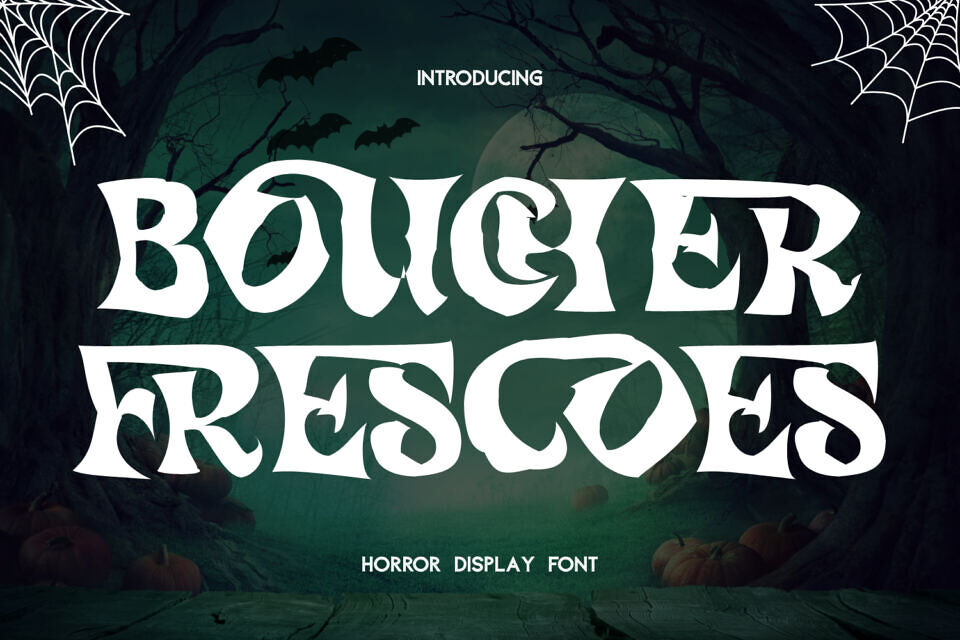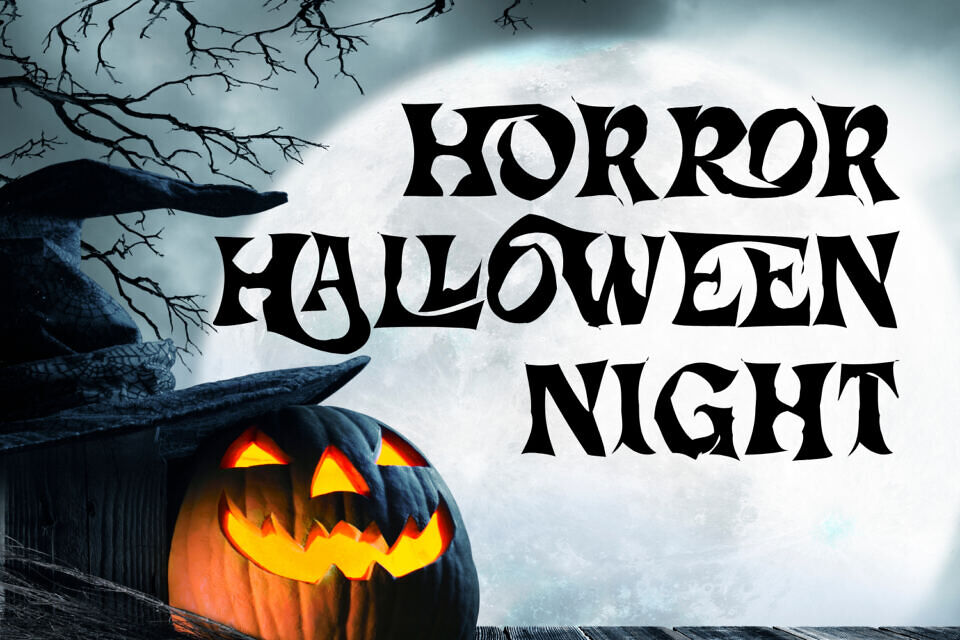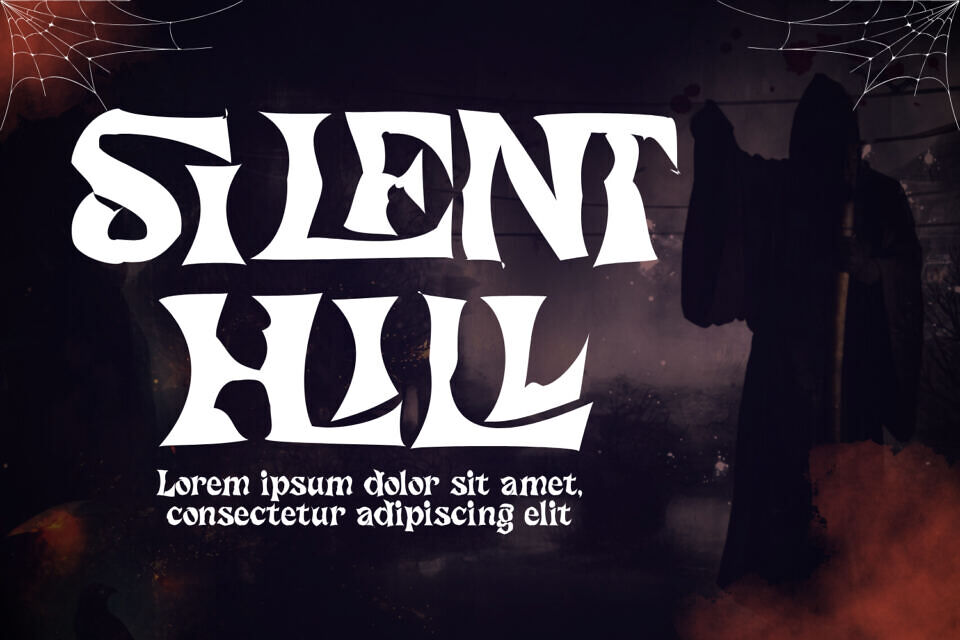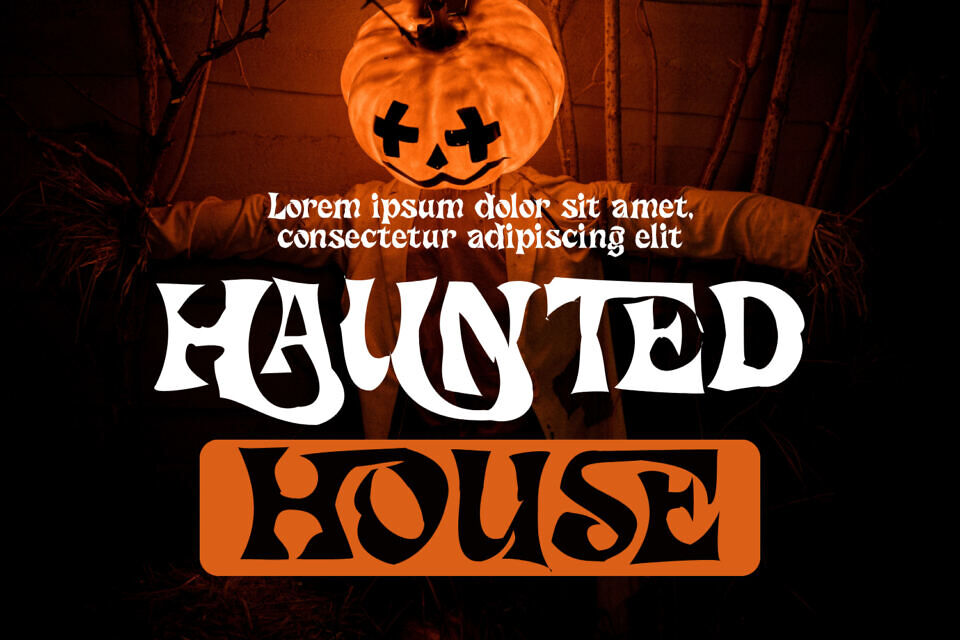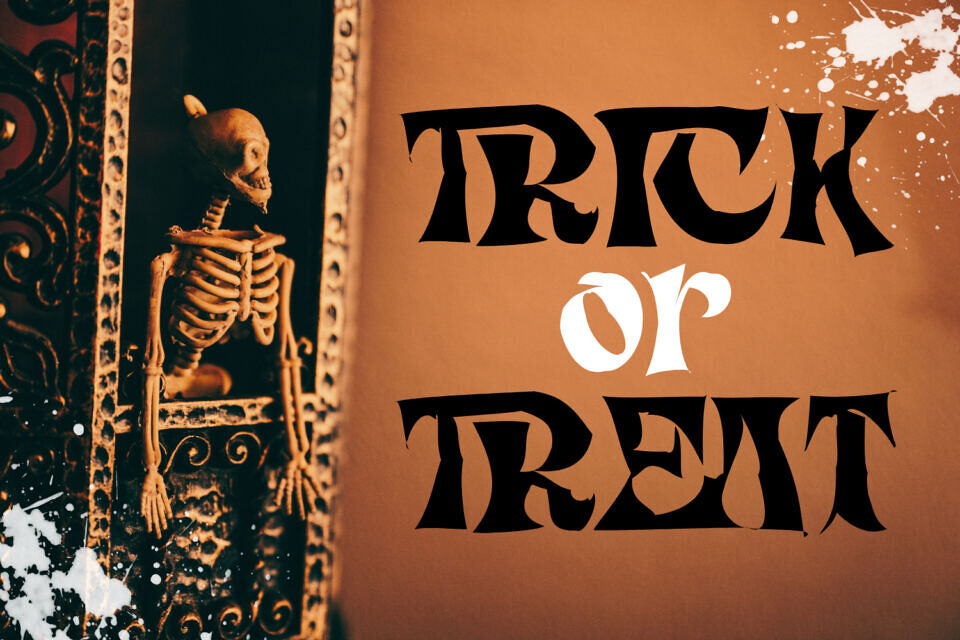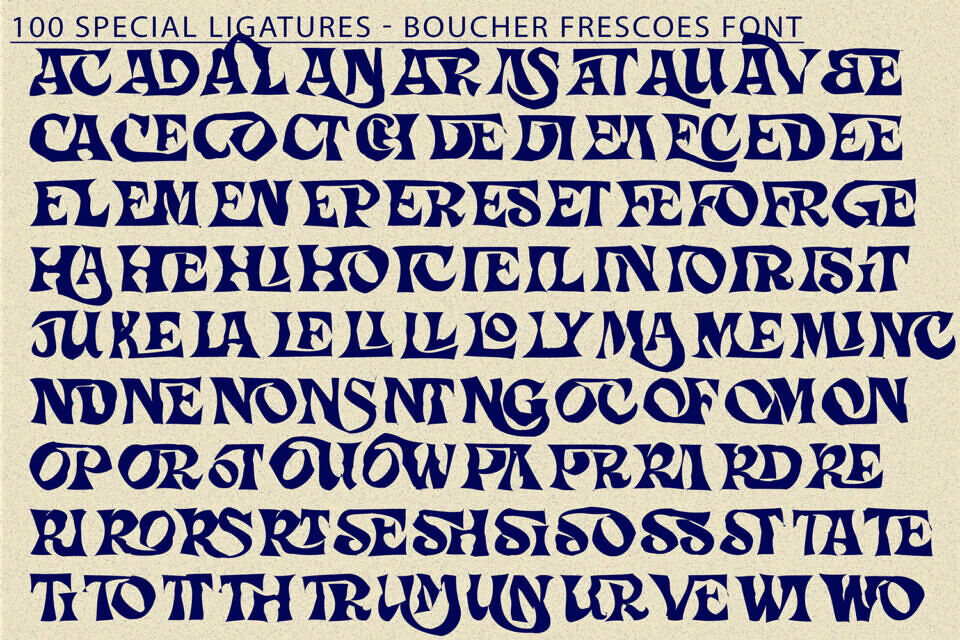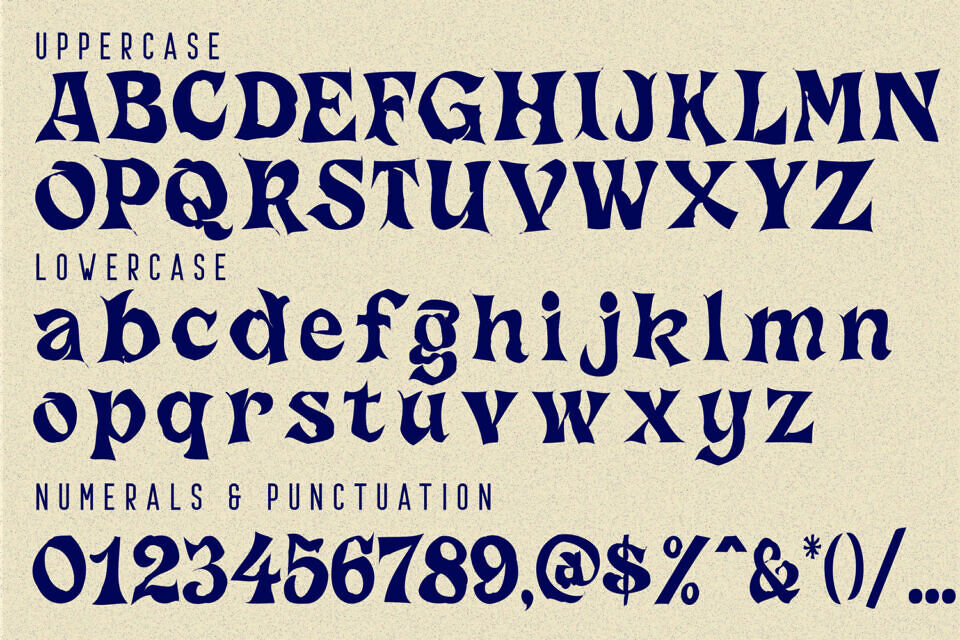
Boucher Frescoes is a bold Psychedelic Serif Display font inspired by retro art and vintage music poster aesthetics. With its free-flowing letterforms, irregular shapes, and decorative energy, this font captures the expressive spirit of the 70s while staying relevant for modern creative projects.
Perfect for music branding, editorial headlines, retro posters, packaging, and artistic visuals, Boucher Frescoes brings personality and movement to every composition.